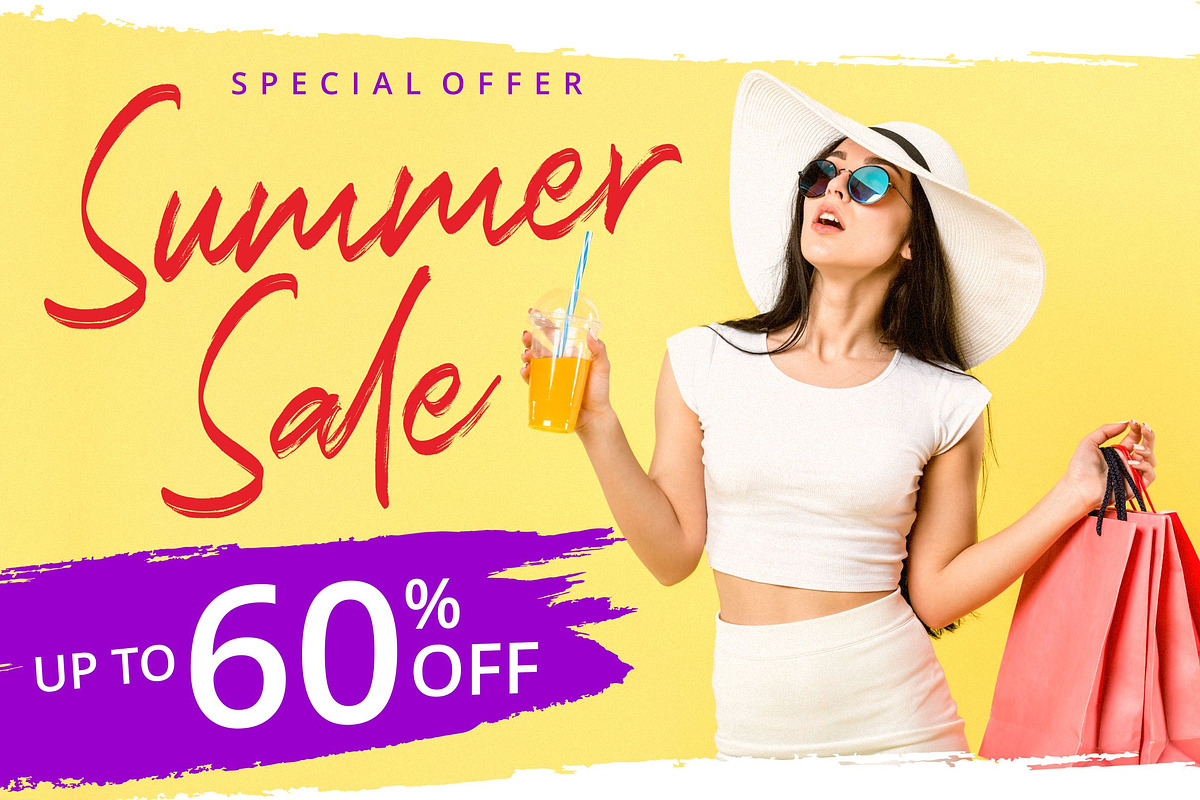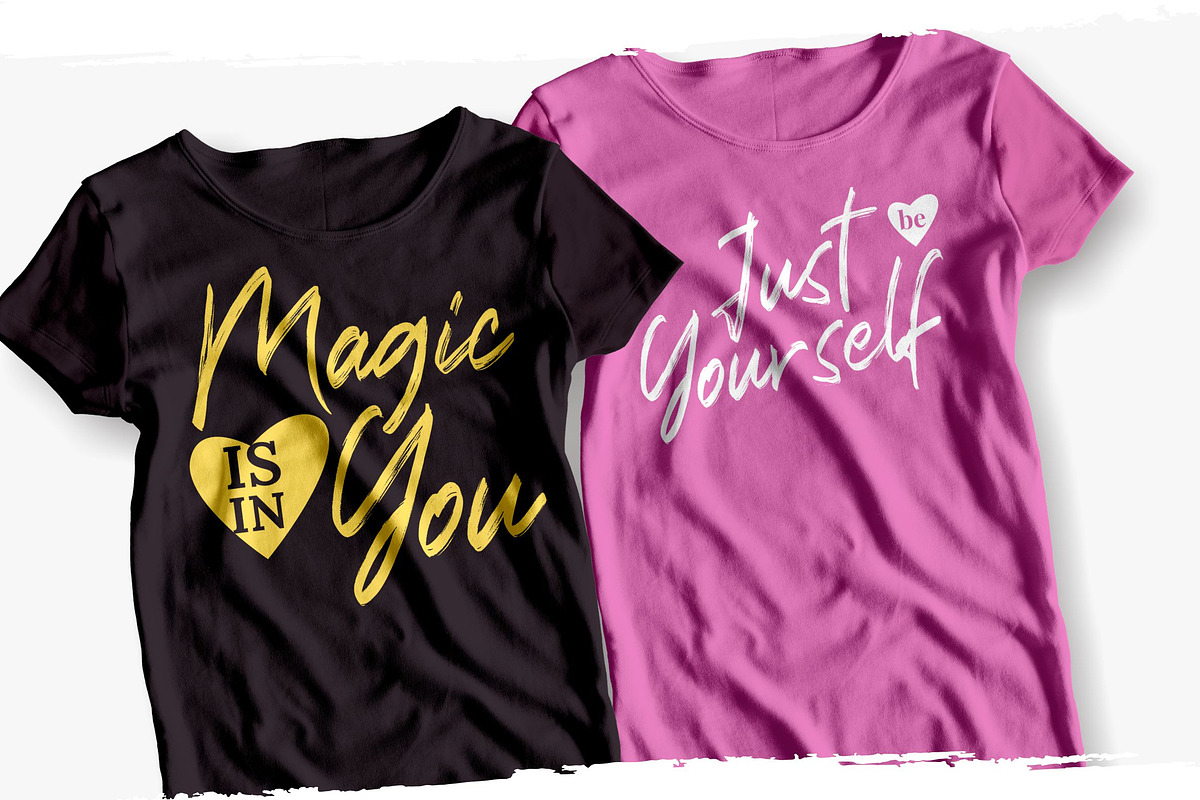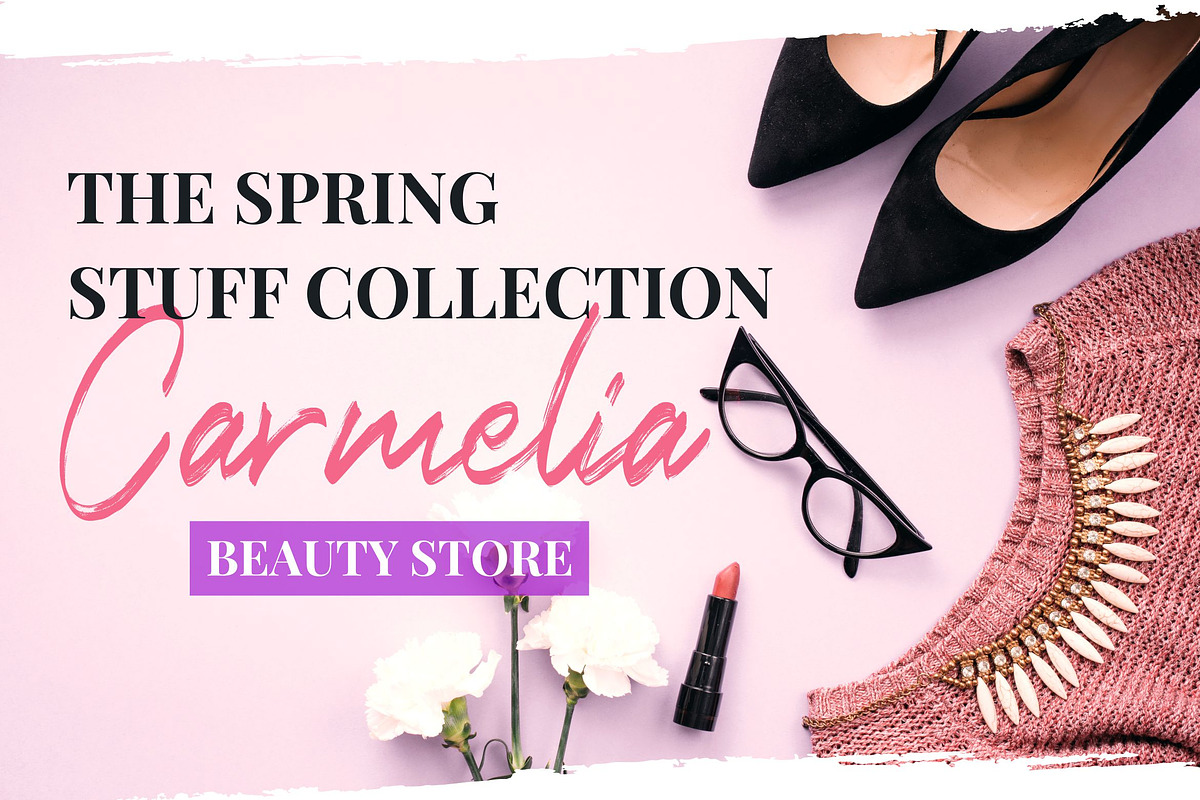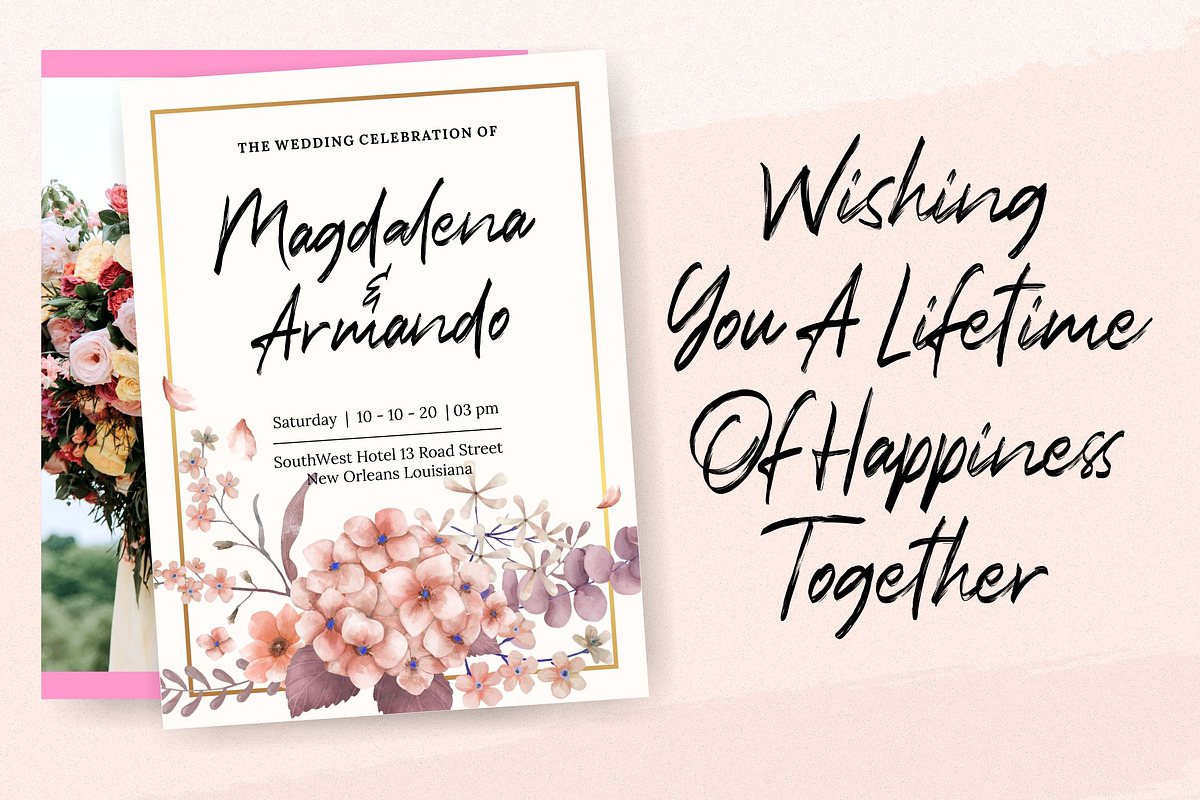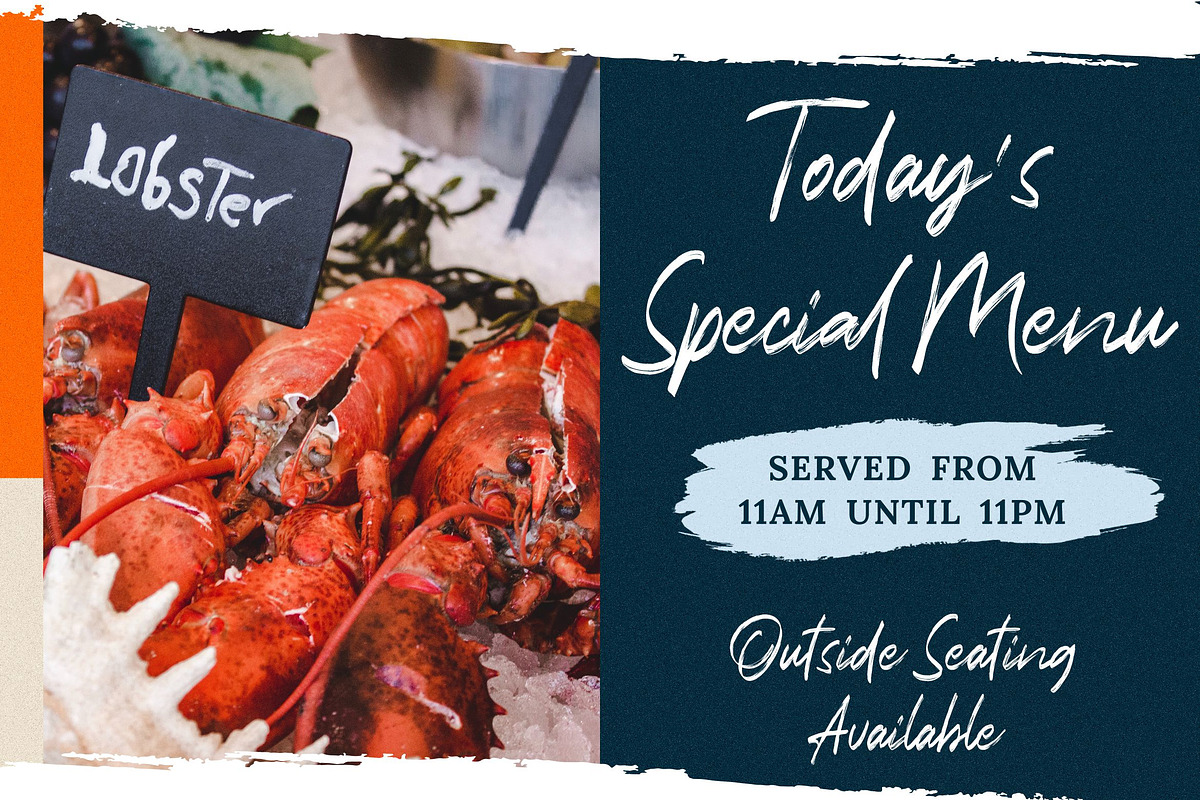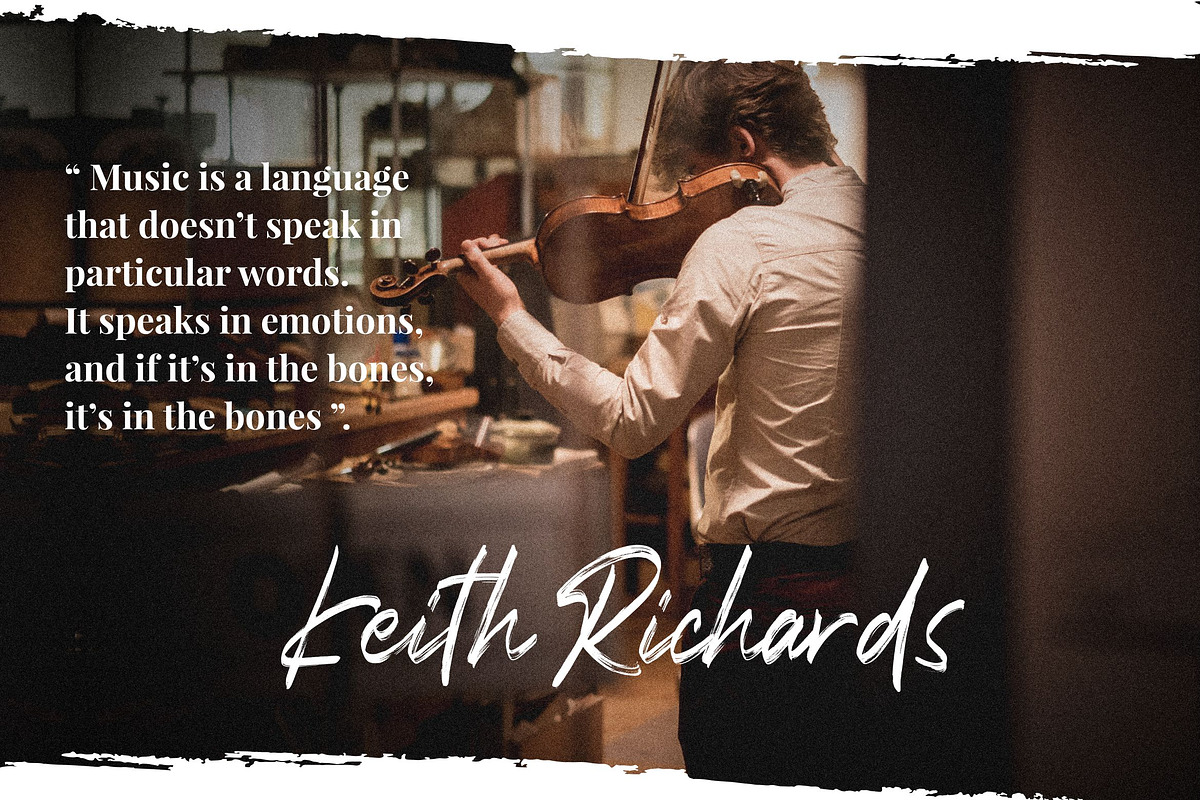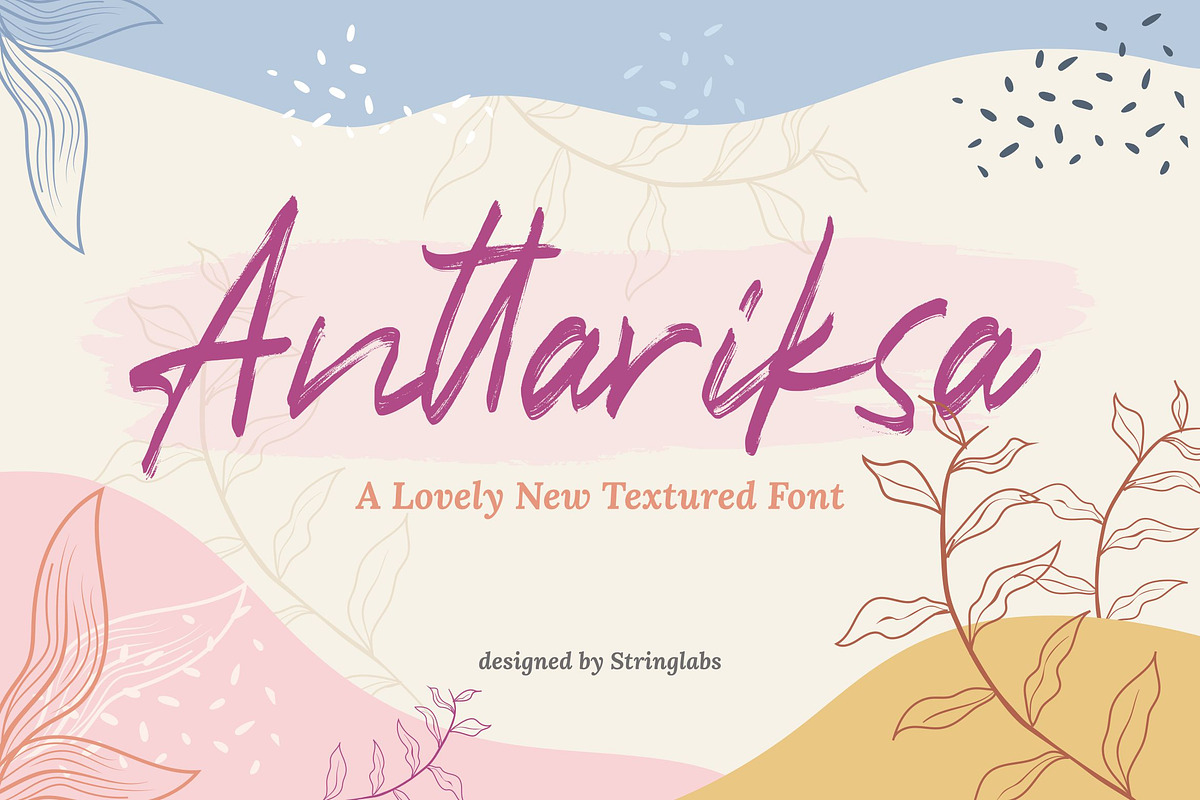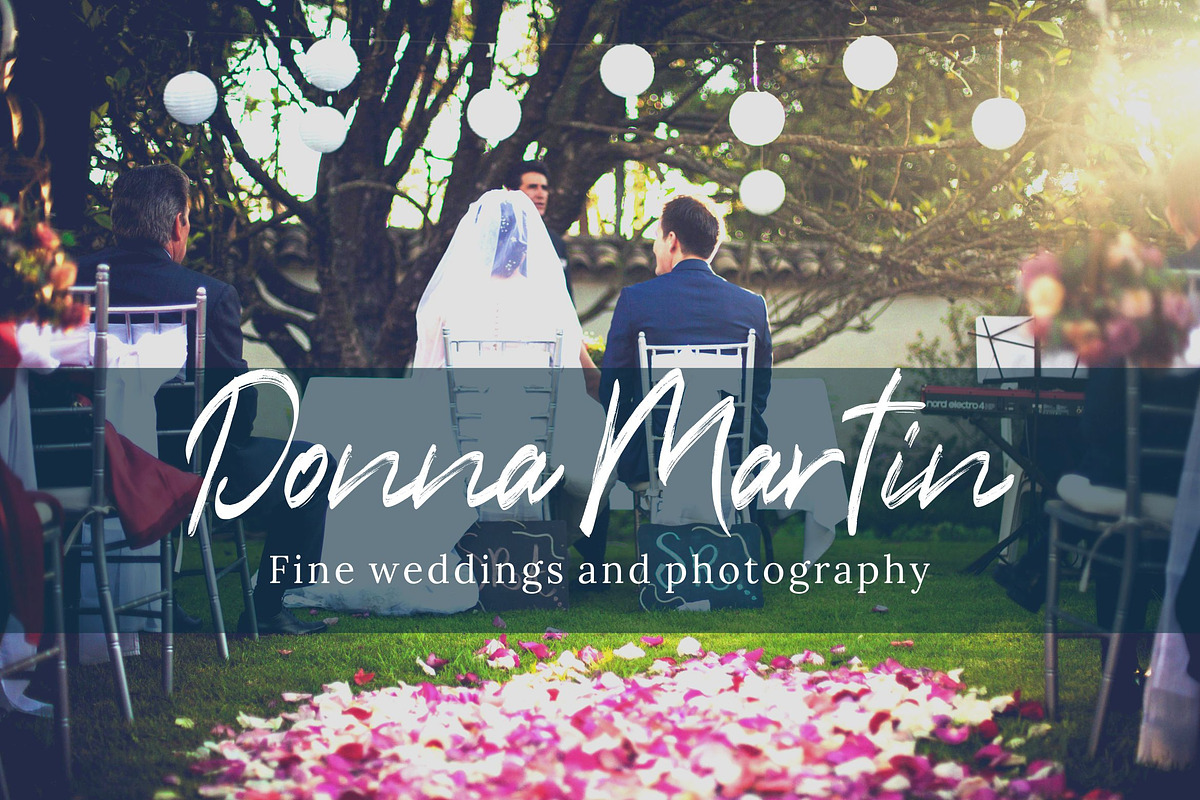
Anttariksa - Brush Script Font
Introducing Anttariksa - Brush Script Font
Anttariksa is a Brush Script Font with Handwritten textured style. The Anttariksa font was created with authentic handmade brush pen. This font is perfect for fashion brand, wedding invitation, business card, logo brand, signature, and then calligraphy.
- This Font Template contains Classy, Elegant, Creative, Cool and has a Unique Concept.
Why Anttariksa - Brush Script Font is worth a look
Anttariksa - Brush Script Font by StringLabs fits naturally into Branding, posters, packaging, typography.